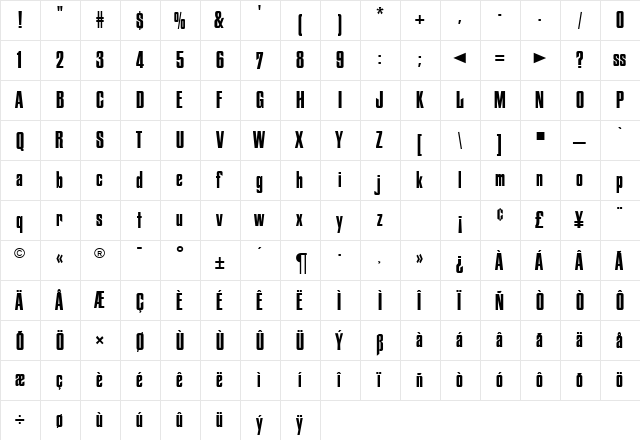
Fiord Regular
Design Context for Fiord Typeface
Fiord takes a measured approach to typography — its balanced proportions and neutral character make it a reliable workhorse for both digital and print work.
Pro Tip: Use Fiord in both headline and body roles to test its range before committing to a single application.